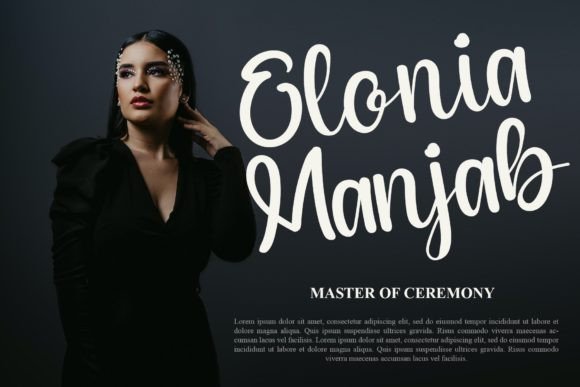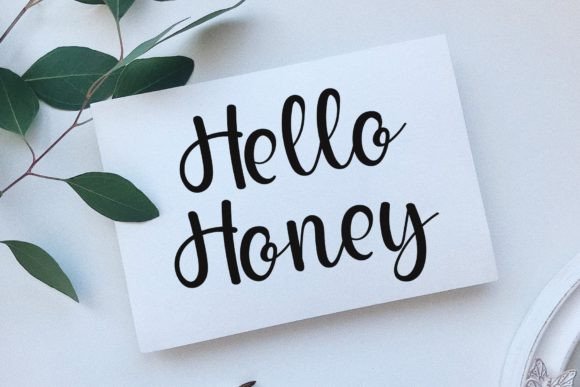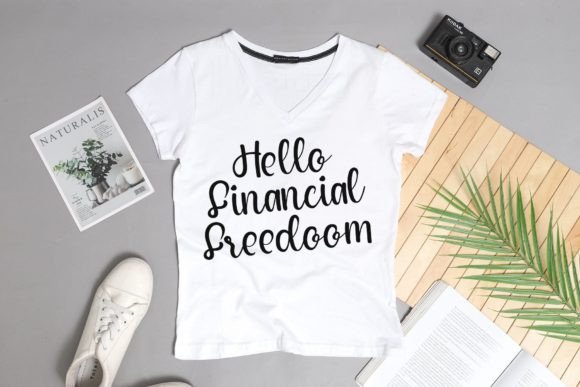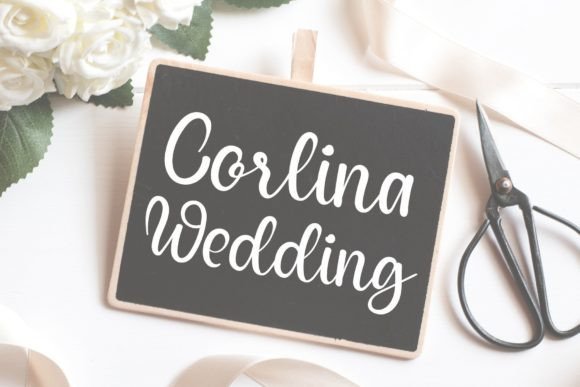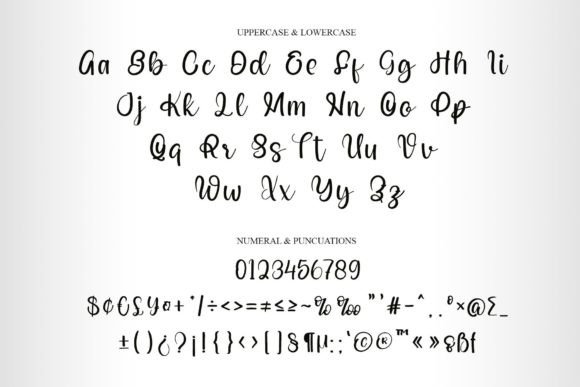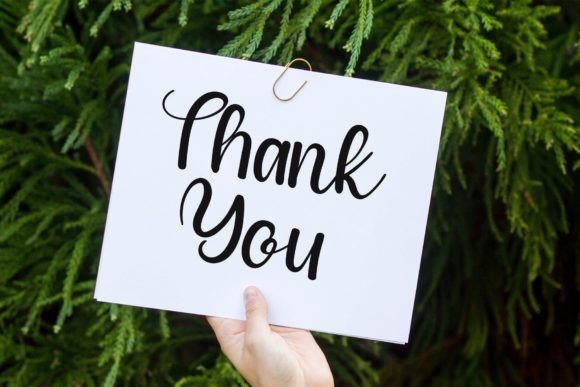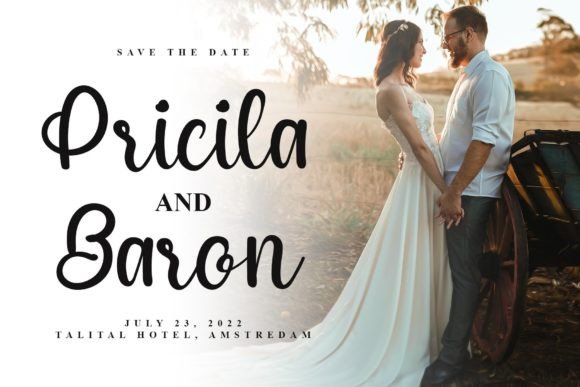
Rainly Font
About Rainly Font
Rainly is not just a font; it’s a fine and smart script font that exudes sophistication and elegance. Its versatile style is designed to capture hearts and inspire awe, making it the perfect choice to create truly spectacular designs. This font goes beyond aesthetics, offering practicality through PUA encoding, ensuring effortless access to all the glyphs and swashes for seamless customization.
Imagine the impact of Rainly on your designs—each letter meticulously crafted to emanate refinement. From elegant invitations to striking headlines, this script font adds a touch of class that elevates every creative project. Its smart and fine characteristics make it adaptable to a wide range of design applications, ensuring that it effortlessly suits your creative vision.
The versatility of Rainly shines through in its ability to convey sophistication while maintaining a contemporary edge. Whether you’re working on branding, packaging, or any creative endeavor, this font becomes a powerful tool in expressing refined aesthetics. It’s more than just a typeface; it becomes a signature style that leaves a lasting impression.
In essence, Rainly is a font that invites you to fall in love with its incredible versatility and timeless elegance. PUA encoding adds a layer of convenience, allowing you to explore and integrate the various glyphs and swashes effortlessly. Let Rainly be the exquisite script font that transforms your designs into truly spectacular works of art.